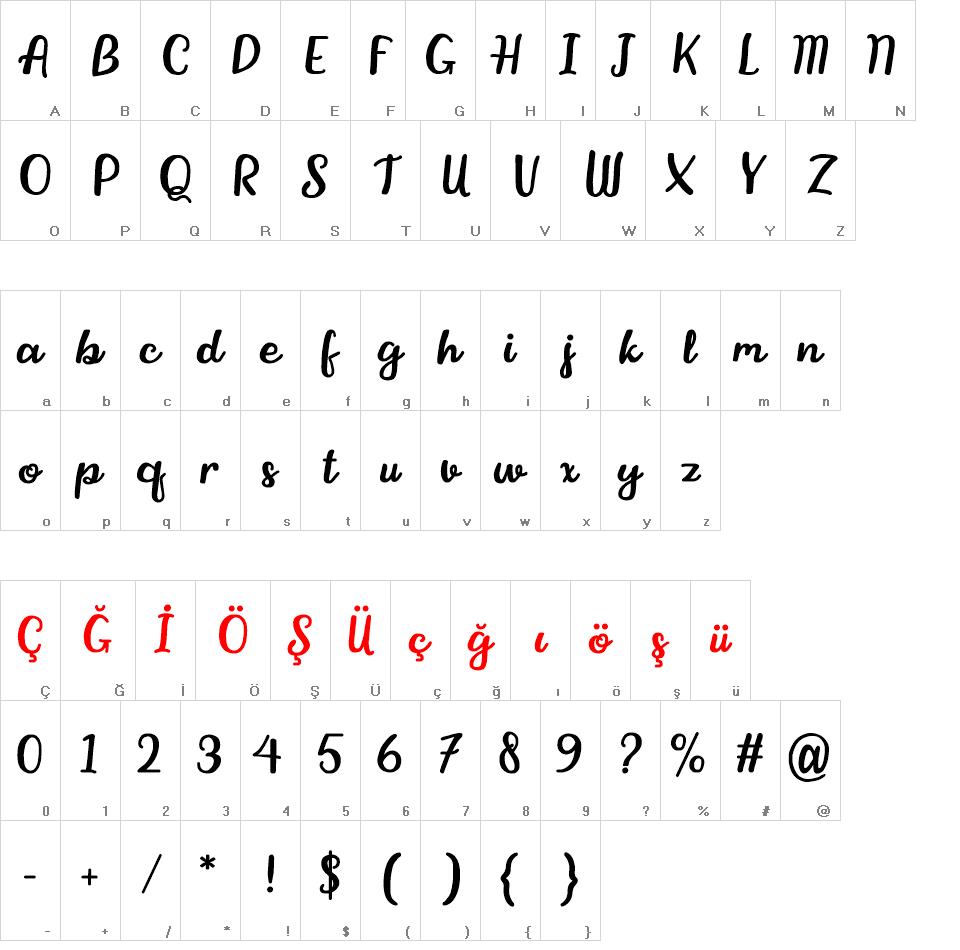
Stika font
Stika is a beautifully feminine and robust font, suitable for headlines and display styles. This easy to read script is constructed with clean lines and ease of movement, making Stika a truly versatile font.